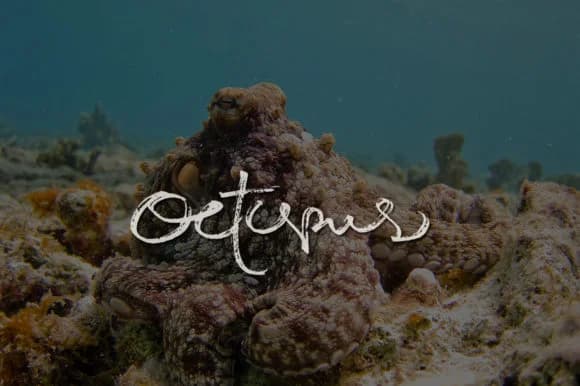
You're designing an intimate wedding invitation suite, and you need lettering that looks handwritten without feeling amateurish or overly decorative. Octopus Font, created by designer Arief.hk, delivers that balance with precision. This script captures the genuine fluidity of pen work, with irregular letterforms that never feel computerized, no matter how you scale or layer them across a page.
The natural rhythm opens up several practical design contexts. You'll find it works beautifully on custom greeting card inserts, boutique bakery packaging labels, and personalized stationery where an authentic touch carries real weight. It fits equally well on business cards in smaller sizes as it does in larger display work for storefront signage or announcement posters. What distinguishes Octopus is its resistance to the stiffness that often plagues digital handwriting fonts, instead maintaining a conversational tone for single words and full paragraphs alike.
Octopus Font is a script font that shines as a display or heading face. Pair it with a clean sans-serif or serif font for body text β the contrast creates a clear hierarchy while the two styles stay balanced and easy to read.